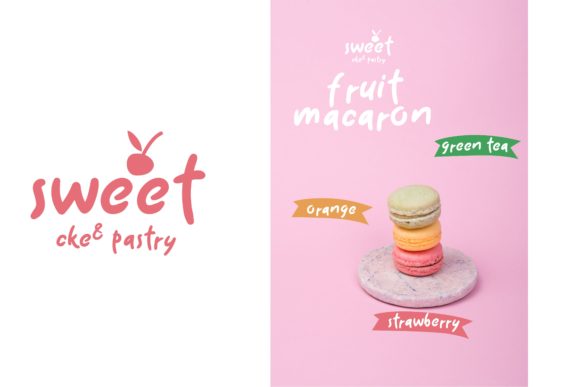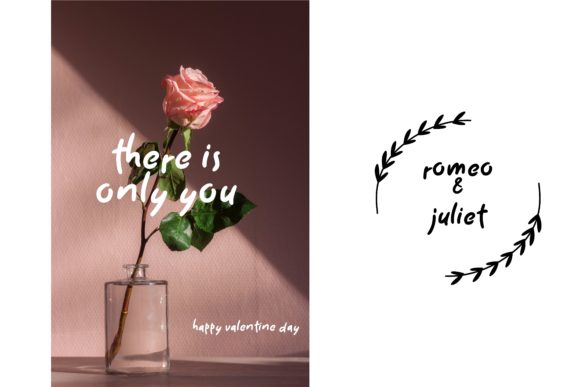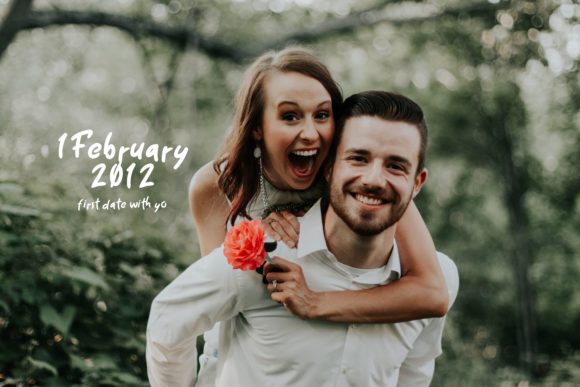
The Berrypop Font: A Bold and Sweet Typeface for Your Designs
I’ll never forget the time I was working on a Valentine’s Day card design project, and I just couldn’t find the right font to convey the sweetness and playfulness I was looking for. The client wanted something bold, yet adorable, and I was on a tight deadline. That’s when I stumbled upon the Berrypop font, and it instantly became my go-to typeface for the project. In this article, I’ll share my experience with Berrypop, its features, and how to make the most of it in your designs.
An Honest Review of Berrypop Font
The Berrypop font has won my heart with its bold and striking appearance. Here are some things I love about it:
• ✨ Perfect for playful designs: Berrypop is ideal for projects that require a fun and sweet typeface, such as magazines, greeting cards, valentine designs, invitations, and more.
• ✅ Easily readable: Despite its boldness, Berrypop is surprisingly easy to read, making it suitable for both headlines and body text.
• 💕 Adorable aesthetic: The font’s rounded edges and smooth curves give it a charming, whimsical feel that’s perfect for designs that need a touch of personality.
While Berrypop is an excellent font, it’s not without its quirks:
• 🤔 Limited versatility: Berrypop is a bold font, and while it’s amazing for certain projects, it might not be the best choice for more formal or minimalist designs.
• ⚠️ Glyph limitations: Some users have reported that the font’s glyph set is not as extensive as they would like, which might limit its use in certain projects.
The Backstory of Berrypop Font
Berrypop is a relatively new font, designed by a team of typographers who wanted to create a bold, yet adorable typeface. The font’s design is inspired by the sweetness and playfulness of childhood, with rounded edges and smooth curves that evoke a sense of whimsy and fun. While the designer’s identity is not publicly known, their work has quickly gained popularity among designers and crafters.
Font Name Berrypop Font
Author Fype Co.
What is Berrypop font best used for? Berrypop is perfect for designs that require a fun and sweet typeface, such as magazines, greeting cards, valentine designs, invitations, and more.
Is Berrypop font easy to read? Yes, despite its boldness, Berrypop is surprisingly easy to read, making it suitable for both headlines and body text.